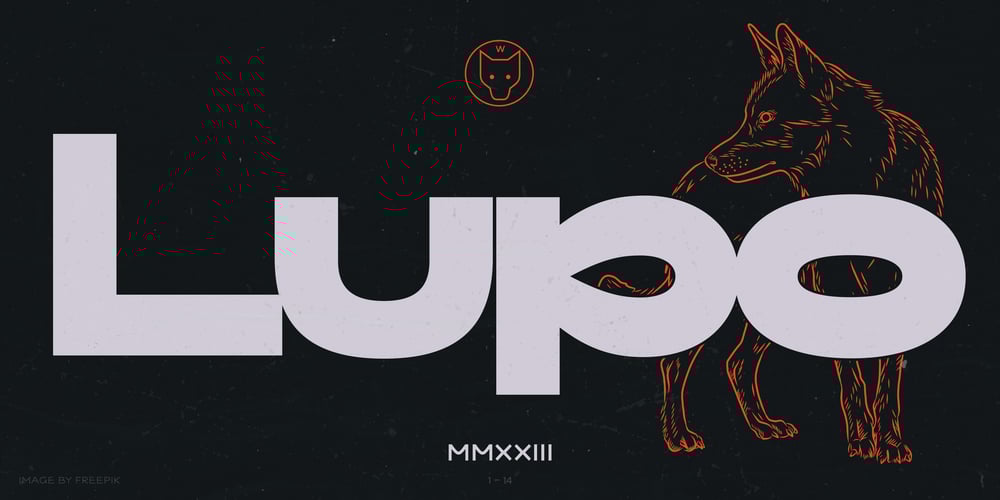
ND Lupo Font Family was designed by Wolf Boese and published by NeueDeutsche. ND Lupo contains 44 styles and family package options. ND Lupo is a modern typeface featuring mono linear strokes and captivating loop shape counters in select lowercase letters. Its elegant design exudes charm, while the clean lines ensure readability. Versatile and legible, perfect for logos, headlines, and creative projects, leaving a lasting impression.